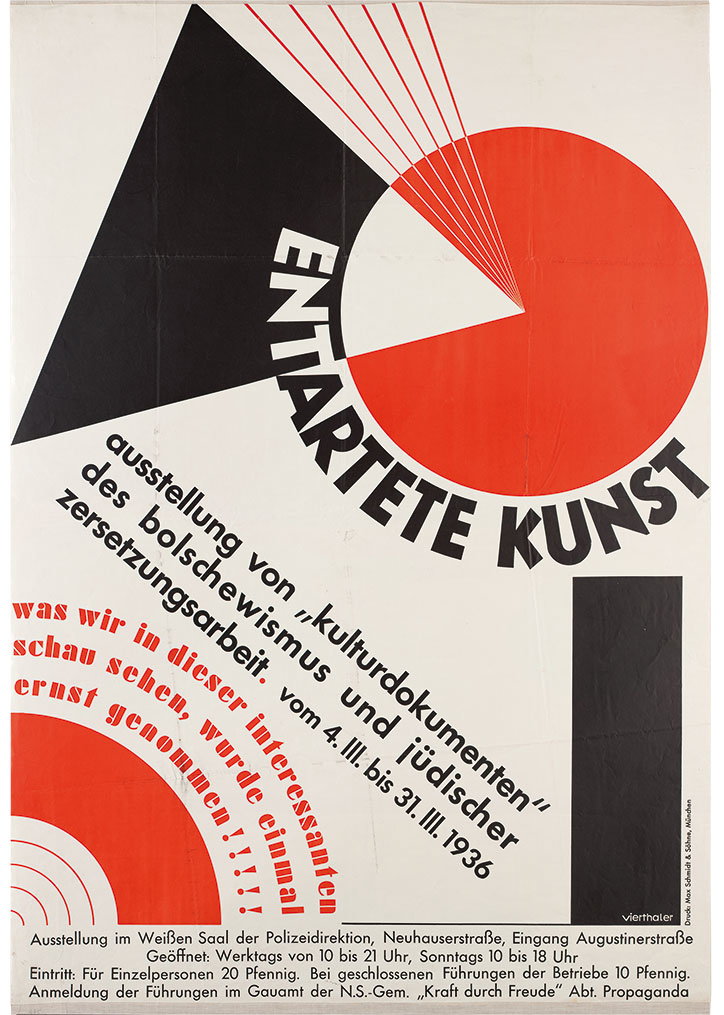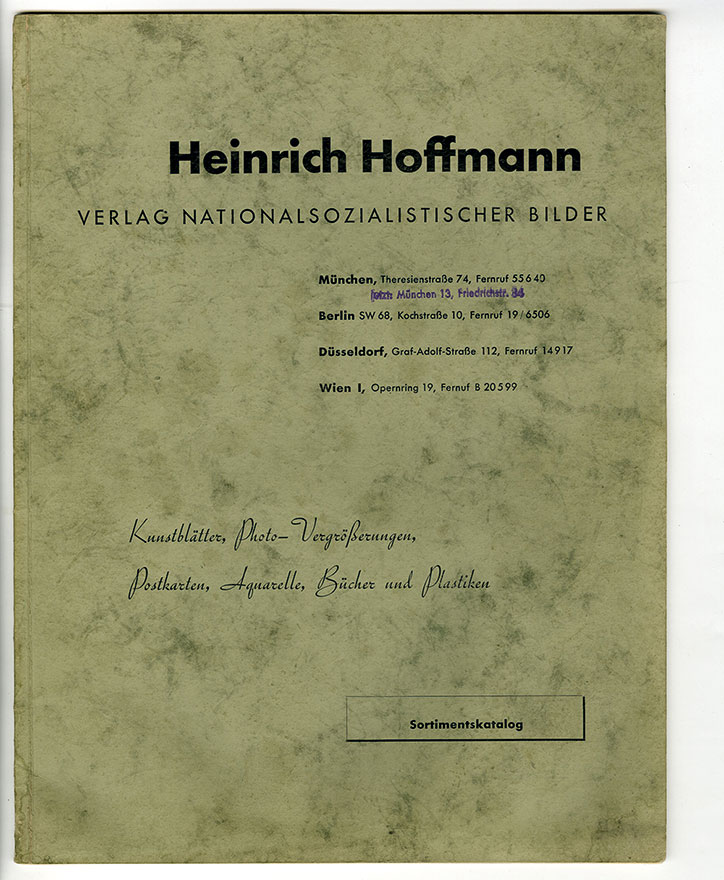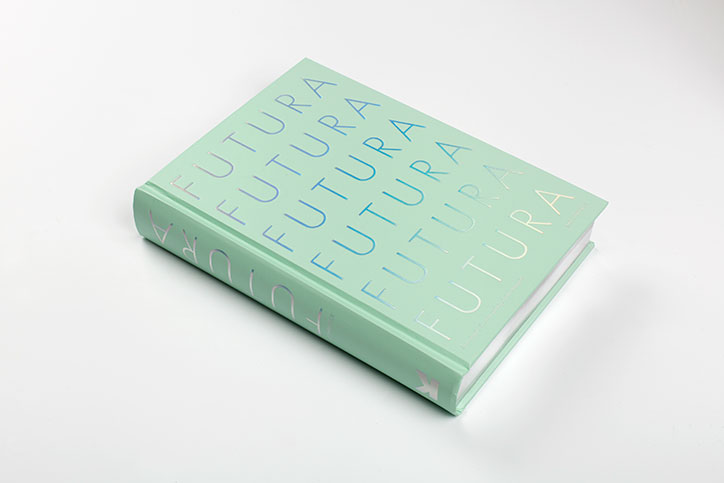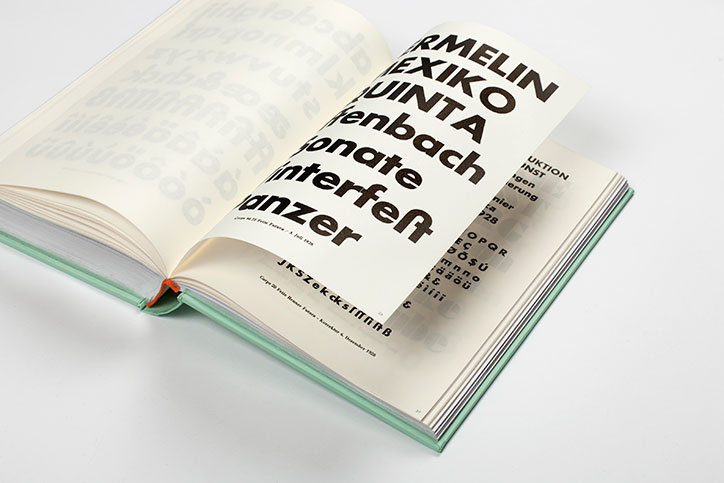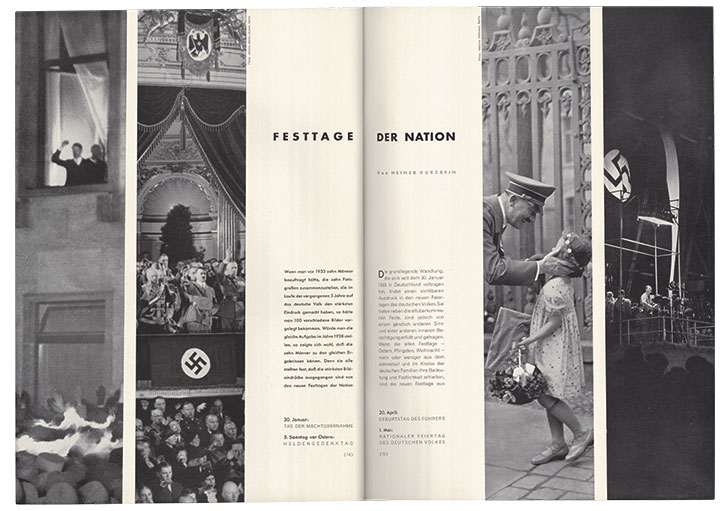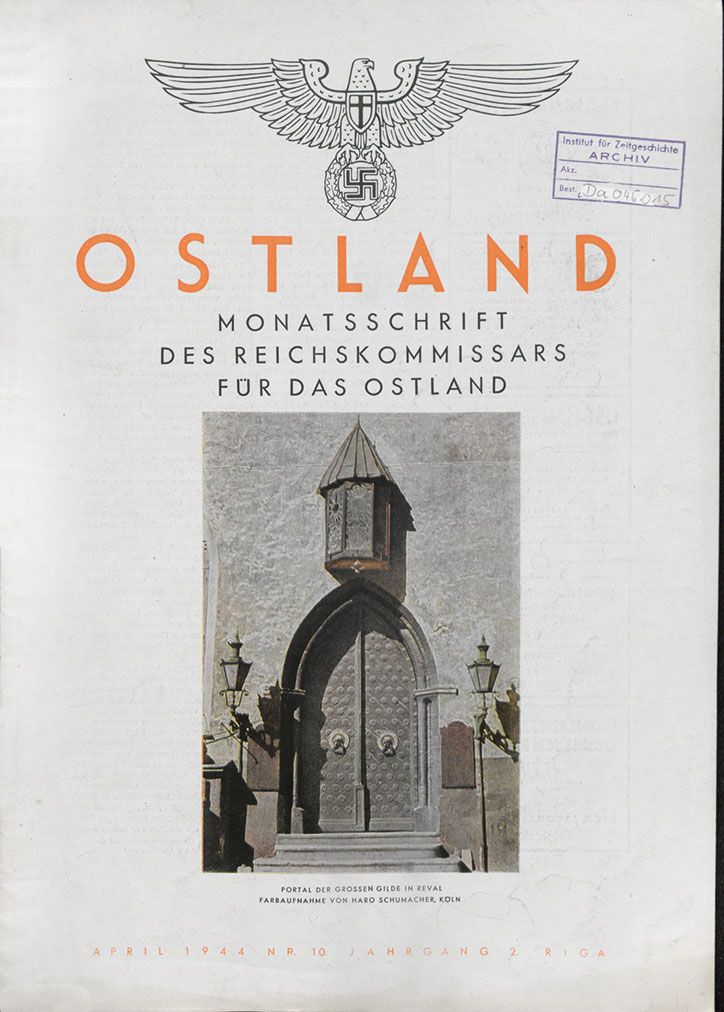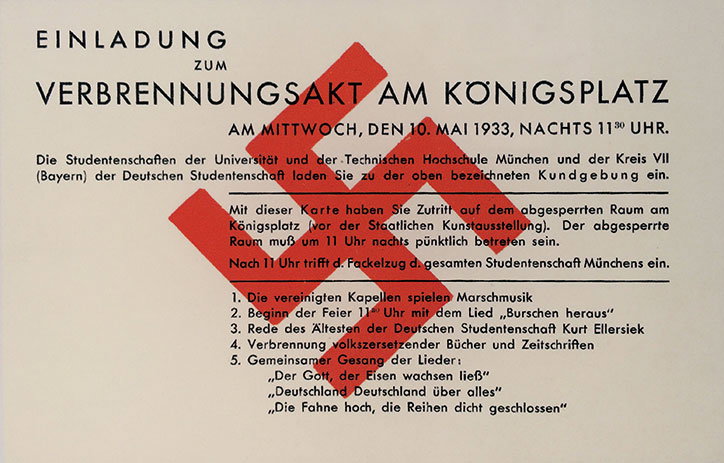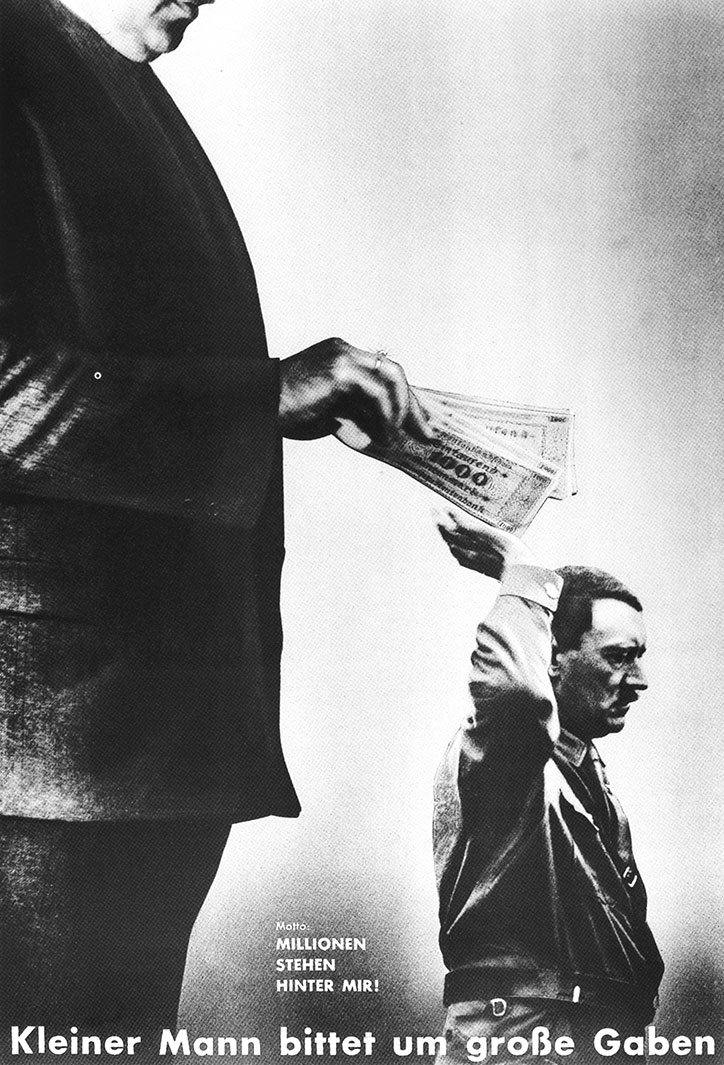
A graphic poster in red, black and white featuring a large red circle and a black triangle. Bold text arcs across the centre reading “ENTARTETE KUNST”. Additional text describes an exhibition of “cultural documents” of Bolshevism and Jewish “decomposition work” from 4 to 31 March 1936. Smaller text at the bottom provides the venue and opening hours.
Typography and National Socialism – the journey of Futura in an era of "reactionary modernity"
As the designer of one of the world’s most popular typefaces, Futura, Paul Renner used his position as a creative leader to criticise National Socialist propaganda in pre WW2 Germany. His fascinating and multi-faceted story is told in-depth in new tome Futura -The Typeface and here we publish an extract by graphic designer and author Andreas Koop about its use during the rise of the Nazis.
The visual representations of the Third Reich are both contradictory and consistent, and the phrase that can be used to describe both the era and the existence of National Socialism, in terms of design, is ‘reactionary modernity’: a modernity behind natural stone facades, a constant contradiction between a real and a predetermined goal, between form and content, between claim and implementation. This can also be observed in its use of type. Just as architecture made use of historical references, with the construction of ‘medieval castles’ and neo-classical structures, alongside the highly functional
industrial buildings in the style of the Bauhaus, typography used a mix of black letter fonts, Antiqua and sans serif types.
A distinction must, however, be made between the years leading up to 1933 and the 12 years of Nazi dominance. At first, the NSDAP made attempts to appear grounded and close to the people, which often gave rise to crude, ‘wooden’ designs using various kinds of Fraktur and Schwabacher types (which were also used by the other parties). However, examples of the use of sans serif types can also be found. With varying degrees of success, typesetters and graphic designers in the Third Reich played freely with the entire range of types. While the poster for the ‘Great German Art Exhibition’, for example, was set in a gold, upper-case and centred Antiqua, lettering for a regional sports event might use black letter type. Similarly, the ‘value’ of the product often determined the care with which the type or types were chosen and applied.
Since it is not possible (and perhaps not even desirable) truly to monitor design against the use of ideologically suitable text – much of which also lacks professional competence – it is impossible to establish a consistent connection with the use of particular types. Design quality and choice of typeface were ultimately dependent on local officials and institutions – their demands, their abilities and their agenda, in addition to the technical possibilities. Naturally, though, an effort was generally made to appear ‘German’ and ‘of the people’, which is why black letter types played an important role until the ‘type decree’ of 1941. 18 The ‘great achievements of German culture’ were considered to be more appropriately represented by an Antiqua – or a sans serif, even if magazines such as Betonstra.enbau and Die Stra.e were considered representative of current technical standards and progress.
This was probably more of an emotional than a rational approach to type, which at that time was determined by the work in question. If a winter relief poster was supposed to appeal strongly to the people, Antiqua capitals were simply not appropriate, since they were considered to be somewhat elitist at that time. Black letter types were absent in almost all international media and applications. For example, no black letter type was used in the context of the 1936 Olympic Games in Berlin. The same applied to recruitment posters in the Netherlands and Denmark. The different target audiences among the German reading public also played an important role in the choice of type. For example, the difference in terms of typographic style and design between the V.lkischer Beobachter and the weekly periodical Das Reich was similar to that between Bild and Die Zeit today.
To grasp design (among other things) in the Third Reich, it is worth examining the magazine Gebrauchsgraphik, which was undoubtedly the most important vehicle of the industry at that time. One thing immediately catches the eye: it uses Futura 20 – despite the destiny of its author. In fact, Paul Renner’s famous typeface (and other sans serif types) began to appear more frequently, demonstrating their modernity and power in instances where they were used to replace an older type as part of a design revision. That Futura’s potential was tested in type combinations for the Waffen-SS is a bitter irony. Its “self-evident, noble figure, free from any influence of fashionable form, and whose crystal-clear purity is always pleasant and fresh to the eye,” could, as the examples show, also be used for negative purposes.
Futura was promoted from Frankfurt by the Bauer Type Foundry in almost every issue of Gebrauchsgraphik, often with advertisements covering an entire page, although interestingly – and certainly not coincidentally – without naming its author (the foundry did not otherwise hesitate exception: the comprehensive announcement of Renner’s 65th birthday, which at first glance does not appear to be an advertisement, and which presents in a preceding editorial piece what are presumably the most conservative works of his output. Even those who rejected ‘Bolshevik design’, Constructivism and
contemporary modernism could not escape Renner (who was driven from his professional post as quickly as possible in 1933) or his Futura. This remains just as true today, as Renner’s most famous type, acting in his stead, continues to outlive all people and all things.
This is an extract from Futura: The Typeface by Petra Eisele, Annette Ludwig and Isabel Naegele, published by Laurence King on 30 October 2017. Pre-order here or get a discount after the book’s release through Laurence King using It’s Nice That promo code INT35.
The cover of a vintage design manual featuring a hand holding a pencil over a red geometric shape. Bold text at the top reads “Typo”, while a Fraktur script below reads “Typographisches Skizzieren und Drucksachenentwerfen”. A small swastika logo appears in the bottom left corner.
An open book displays a study of bold, black typography on white pages. The right page features a list of words in a heavy sans-serif font, including “MEXIKO” and “QUINTA”.